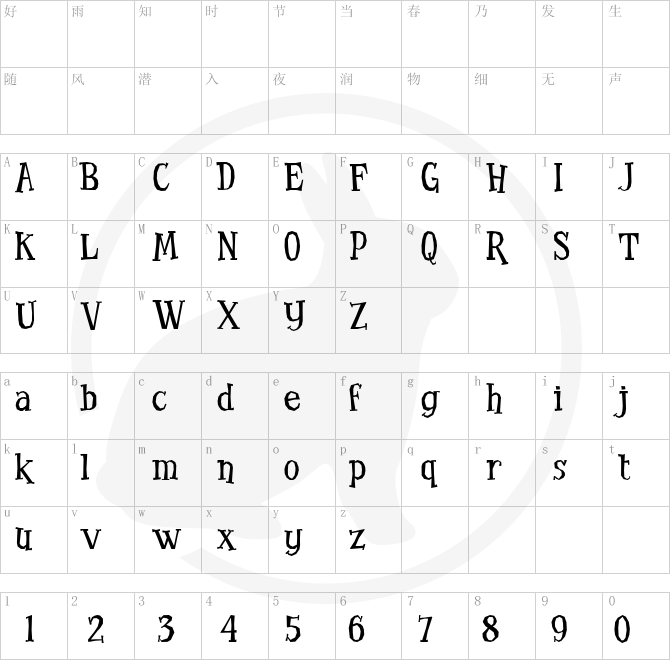
- Font Name:QK Khaki
QK-Khaki.ttf is a very beautiful artistic font, QK-Khaki.ttf is widely used in the design and printing of various books and pictures,QK-Khaki.ttf has a strong visual impact,QK-Khaki.ttf is a commonly used font in newspapers, magazines and books, and is used in posters, e-commerce Poster design, store design, logo design, font design and other fields.QK-Khaki.